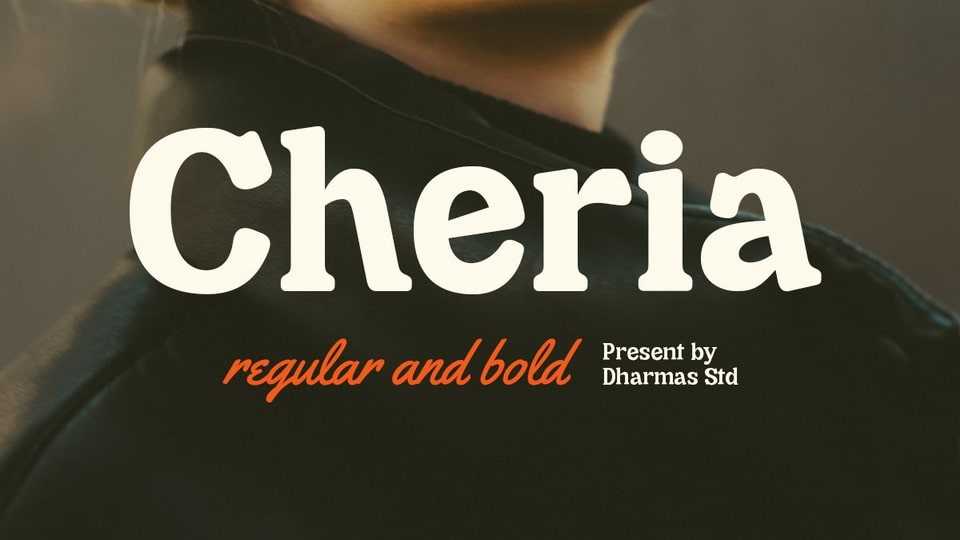
Download Cheria font, a chunky serif typeface with a bit of humanist touch. With its good readability, Cheria is perfect for both displays as well as body text.